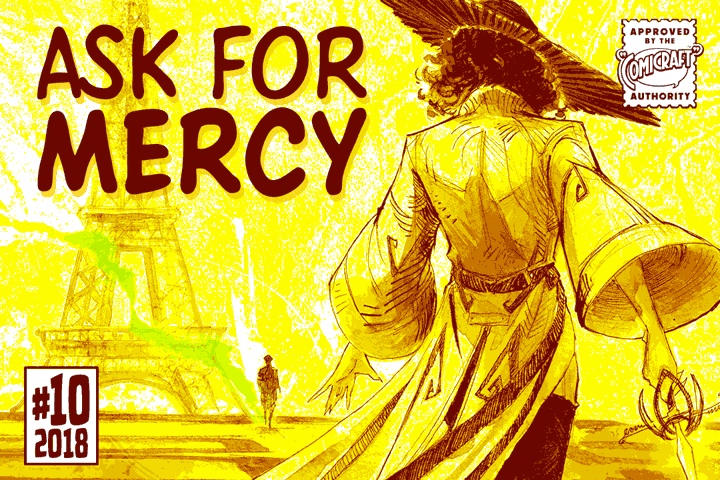
Ask For Mercy Font
Ask For Mercy Font is perfect for intense gaming brands, dramatic thriller productions, dark entertainment venues, horror movie campaigns, extreme sports marketing, and edgy music industry materials. Its commanding character makes it ideal for competitive esports teams, action movie studios, underground music labels, intense fitness programs, dramatic theater productions, and any project requiring powerful intensity with dramatic impact and uncompromising boldness appeal.
This font is exciting because it embodies raw intensity and dramatic power while delivering exceptional functionality for brands that need to command immediate attention and create unforgettable impact. The forcefully crafted letterforms demand respect and create instant emotional response, making it perfect for organizations seeking to communicate strength, determination, and the kind of bold presence that stops audiences in their tracks with undeniable authority.
The Ask For Mercy Font family typically includes Light, Regular, Medium, and Bold weights with intense alternates, dramatic ligatures, and powerful decorative elements that enhance its commanding personality. This comprehensive collection enables entertainment professionals to create authoritative brand systems that maintain dramatic credibility while offering flexibility for various high-impact applications requiring both emotional intensity and contemporary market positioning.
Whether you're developing identity systems for gaming companies, creating materials for intense entertainment productions, or designing promotional content for extreme experience brands, Ask For Mercy Font delivers the dramatic intensity and commanding presence that resonates with audiences seeking powerful experiences and bold entertainment. Its formidable presence ensures memorable brand recognition across digital platforms and print materials, making it perfect for websites, mobile applications, and intense campaigns that celebrate dramatic power, competitive spirit, and the transformative impact of uncompromising intensity with contemporary boldness and authentic dramatic authority.